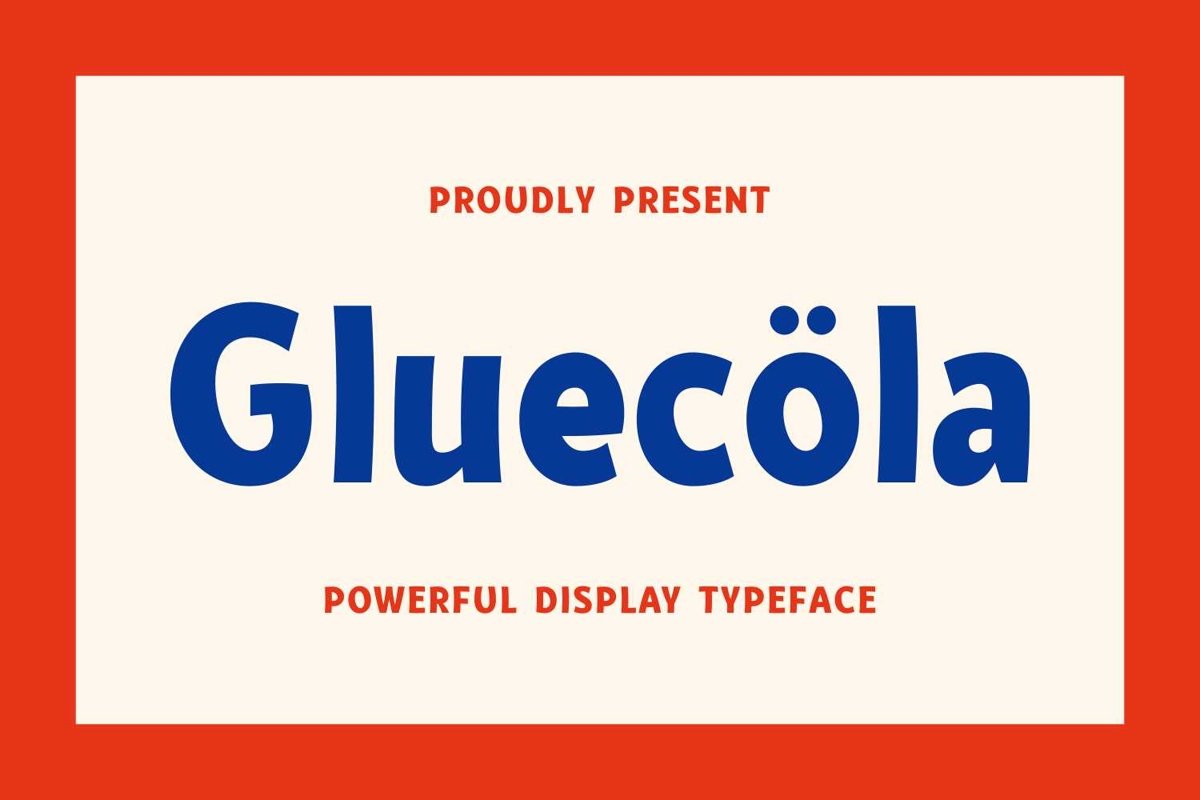
Gluecöla is powerful sans serif display come with casual themes. It matches applies in some designs such as the logotype, brand, packaging, quotes, poster, shirt, book, badge and more custom design. The features uppercase, lowercase, numeral, punctuation & symbol, multilingual support, PUA encoded (fully accessible without additional design software).